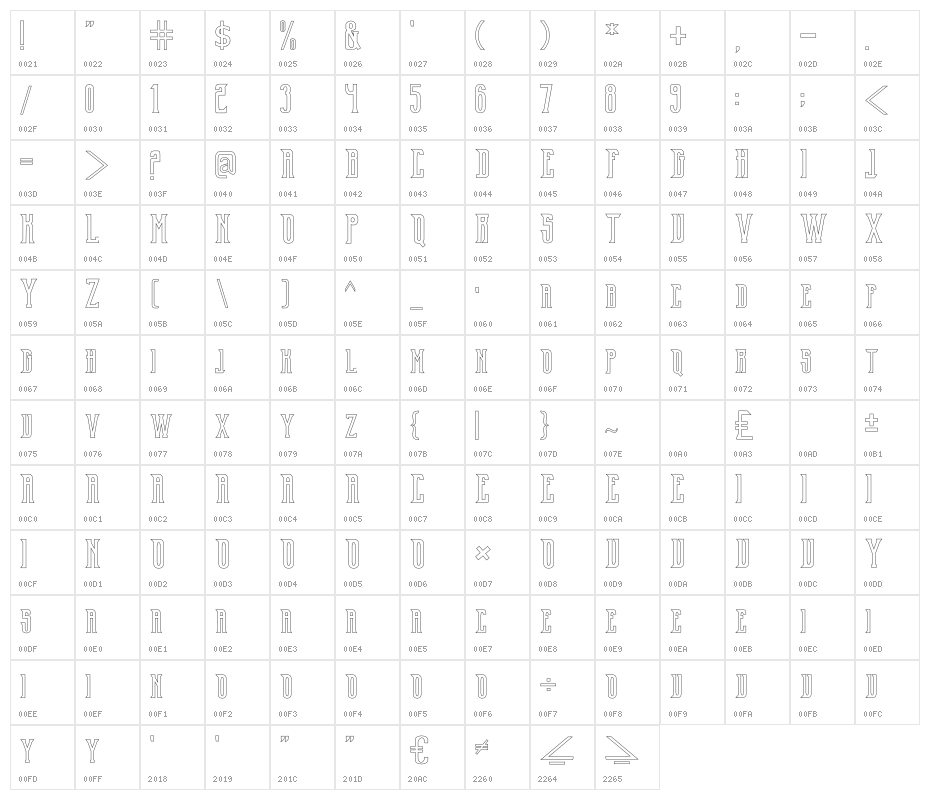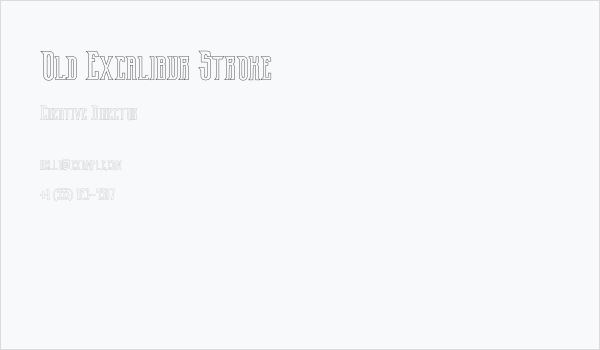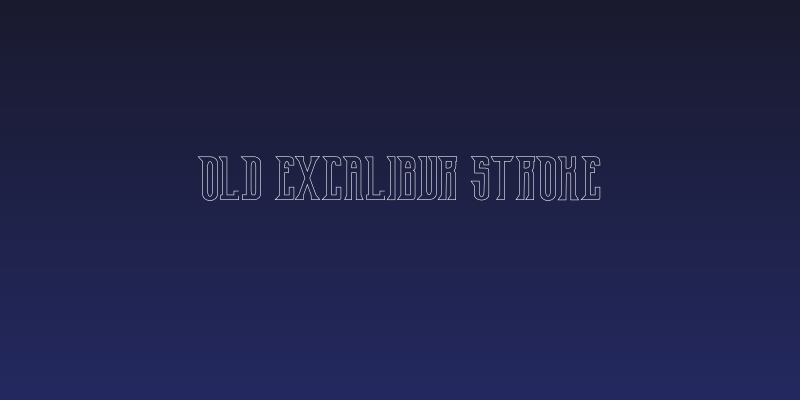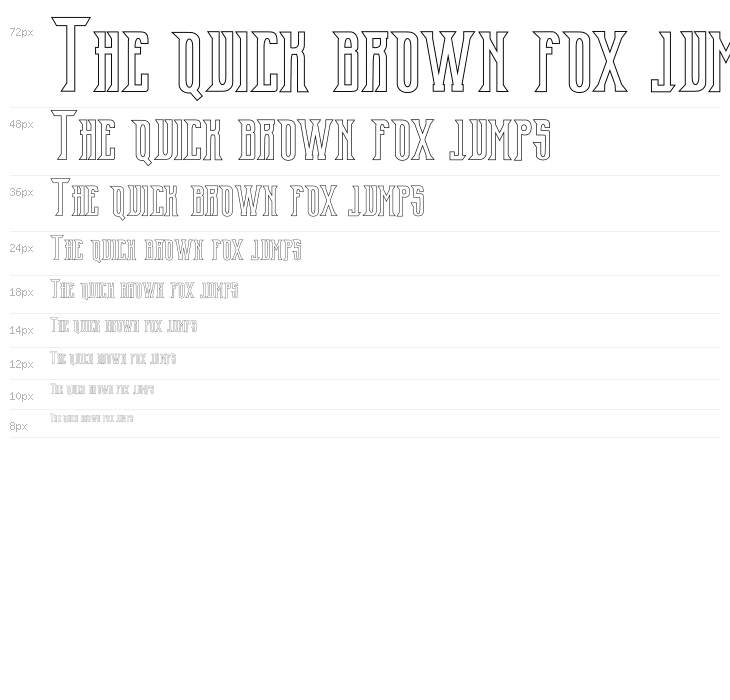
Old Excalibur Stroke Font
Old Excalibur Stroke Description
This font features a bold and striking design with a medieval flair, characterized by its sharp, angular lines and intricate detailing. The uppercase and lowercase letters maintain a consistent height, creating a uniform appearance. The numbers and special characters follow the same stylistic approach, ensuring cohesion across all glyphs. The font's outline style gives it a unique, almost three-dimensional effect, making it stand out in any design. Its decorative nature is reminiscent of historical scripts, yet it maintains a modern edge through its clean execution.
Proposed ProjectsIdeal for projects that require a historical or fantasy theme, such as book covers, posters, or themed event invitations.